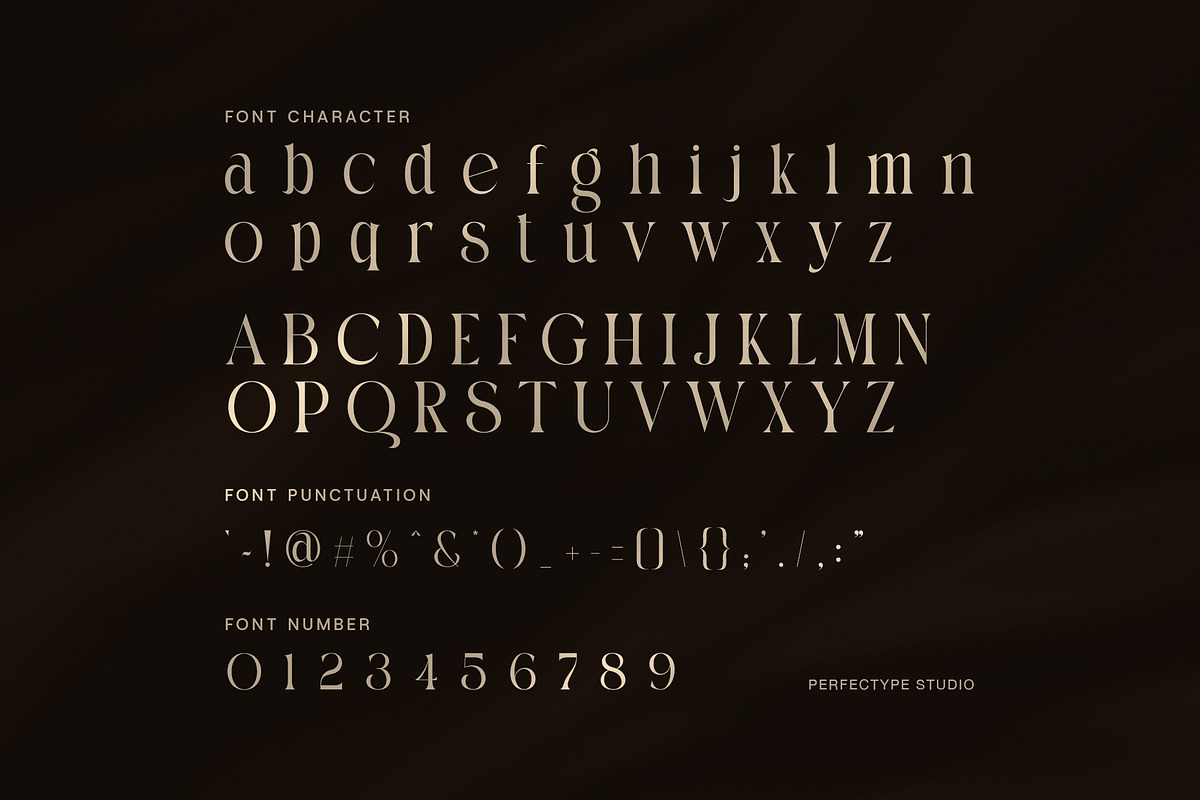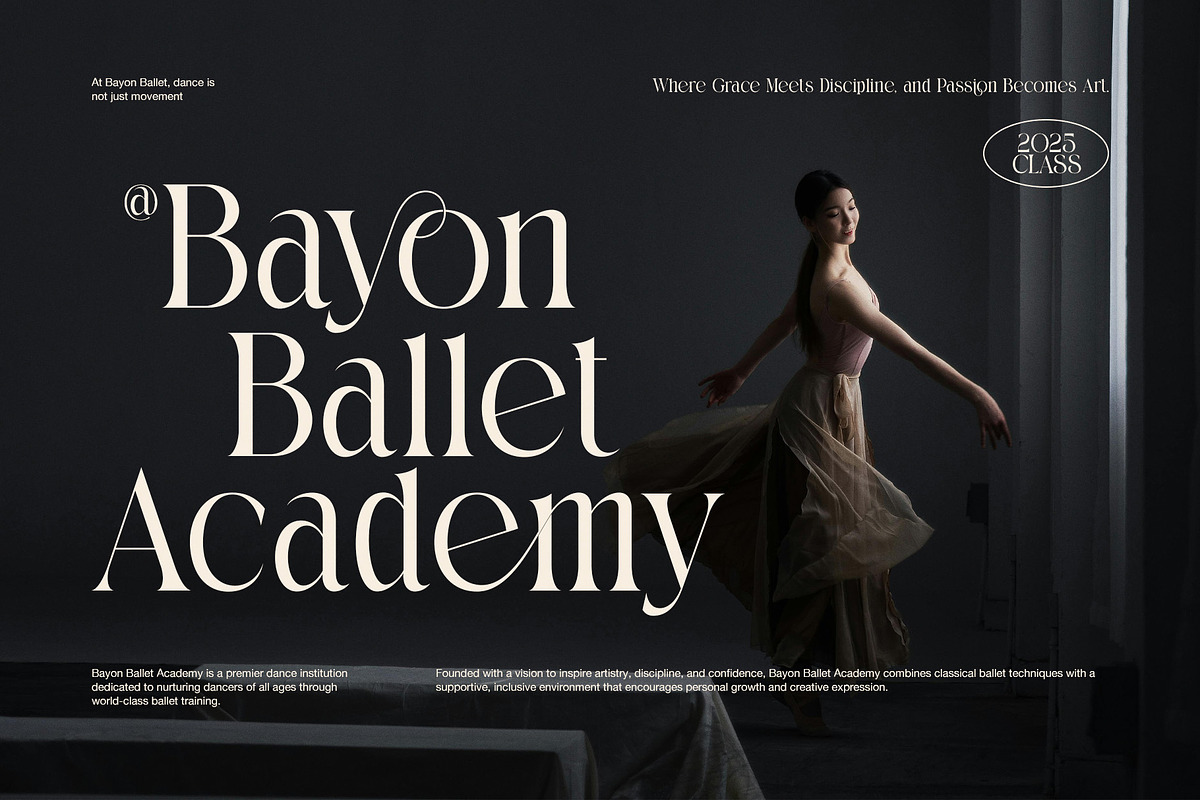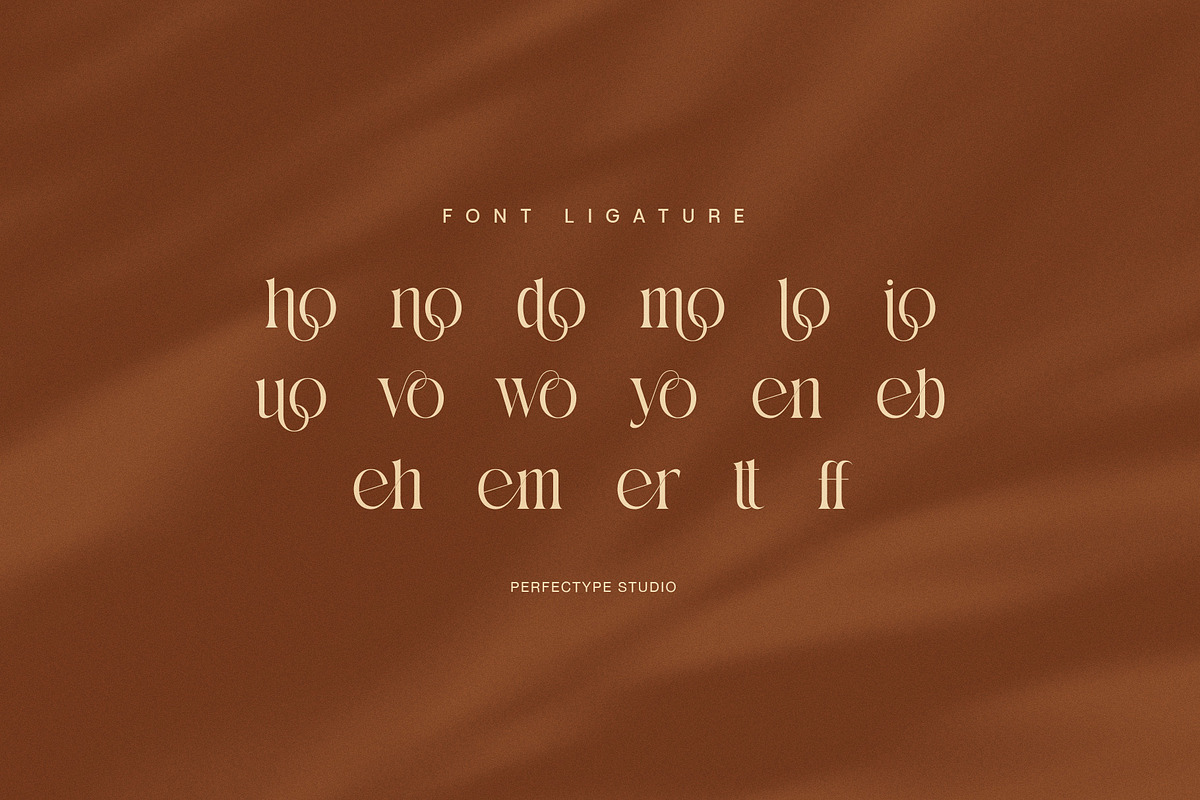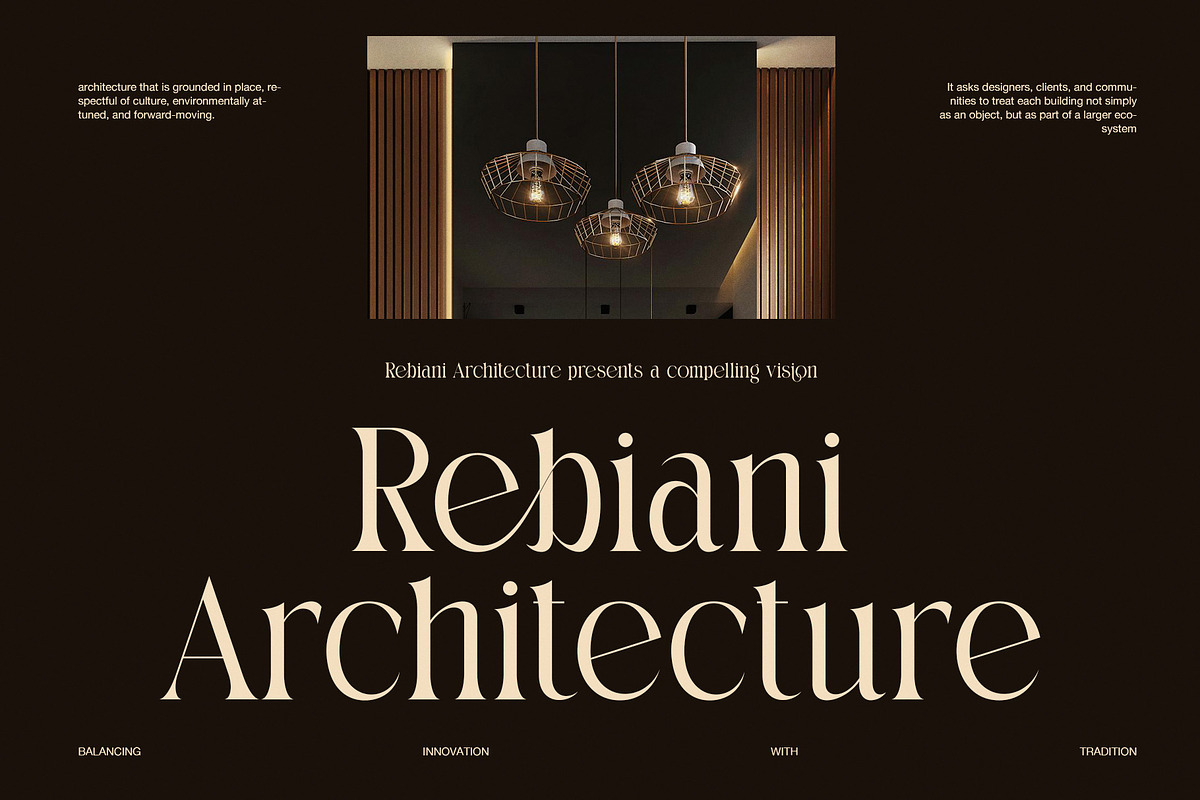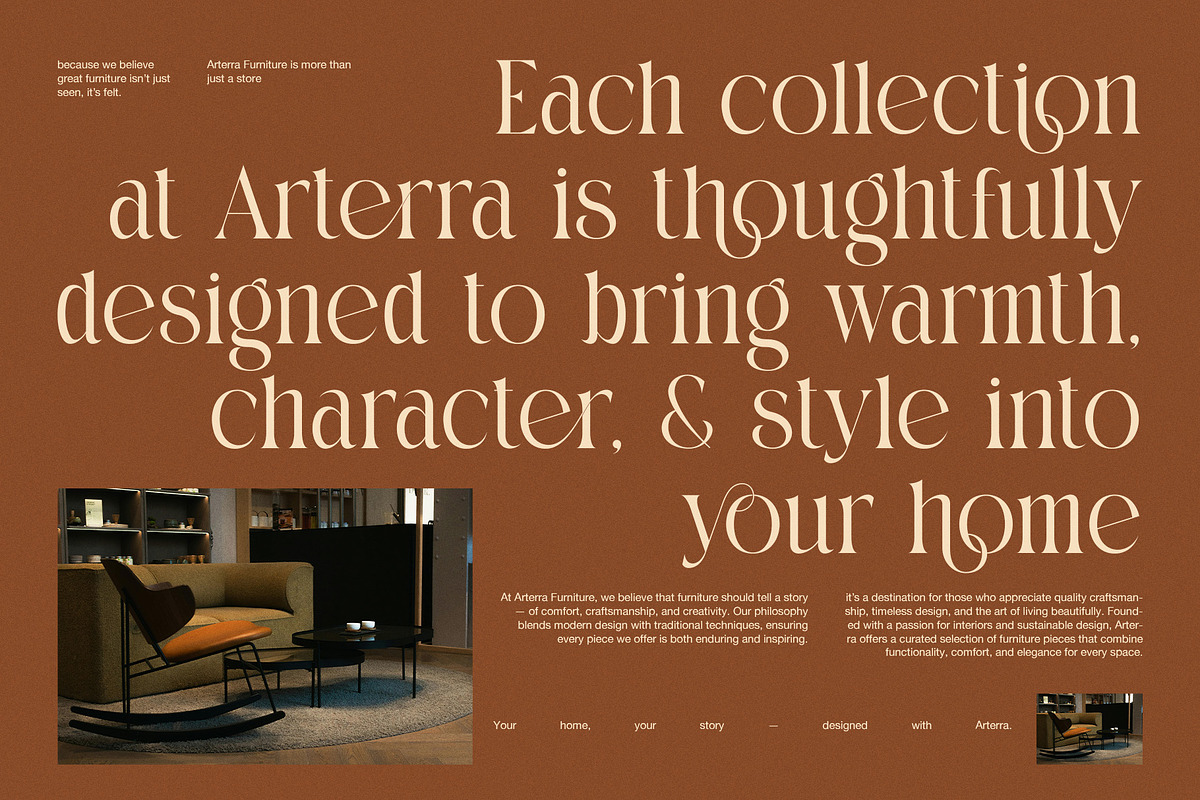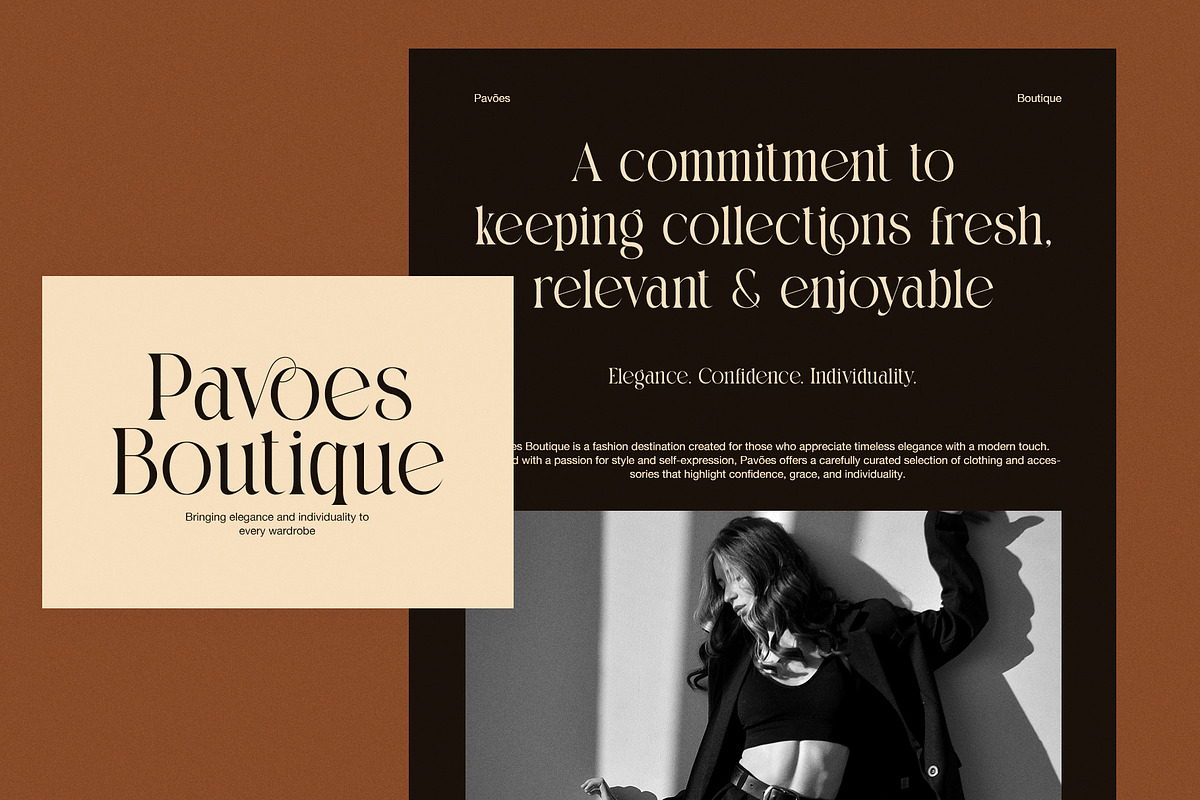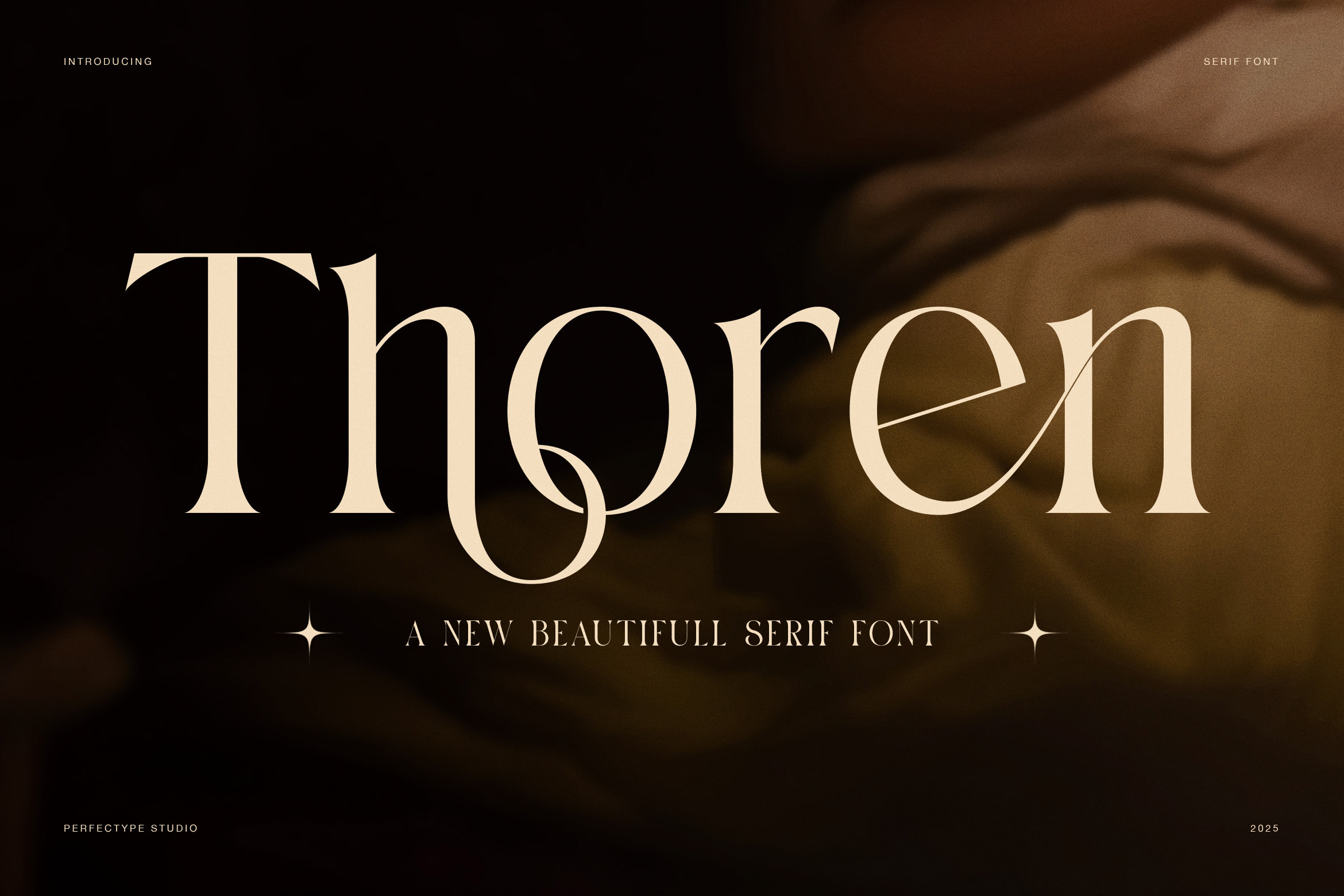
Thoren Elegant Serif Font
Thoren is an elegant serif font designed to express warmth, balance, and timeless sophistication. It combines refined serif foundations with smooth curves and subtle decorative details, which creates a graceful and confident typographic voice. Because of this balance, Thoren feels luxurious while remaining natural and approachable.
First of all, Thoren features carefully shaped letterforms with soft contrast and flowing strokes. These elements guide the reader’s eye smoothly, which improves readability while preserving elegance. Moreover, the rounded terminals and delicate connections add character without overpowering the design. As a result, Thoren performs beautifully in both statement headlines and refined layouts.
In addition, Thoren includes stylish ligatures and alternates that enhance creative freedom. These features allow designers to create expressive wordmarks and distinctive typography while maintaining a cohesive look. Therefore, each project can feel custom and intentional, even when used across multiple platforms.
Furthermore, Thoren adapts effortlessly to many design categories. It is ideal for fashion branding, interior design, architecture studios, boutique identities, editorial layouts, and lifestyle visuals. At the same time, it works smoothly in digital environments such as websites, social media graphics, and online advertisements. Because of its balanced proportions, Thoren remains elegant at both large and medium sizes.
Another strength of Thoren lies in its emotional tone. The font communicates comfort, confidence, and refined taste. Consequently, it supports storytelling and brand identity while creating a calm and premium atmosphere. Designers can rely on Thoren to elevate content without distracting from the message.
Why choose Thoren Elegant Serif Font?
Elegant serif style with smooth, flowing curves
Ligatures and alternates for expressive typography
Ideal for fashion, interior, and boutique branding
Comfortable readability with refined contrast
Suitable for print and digital projects
Timeless design with a warm, premium feel
In conclusion, Thoren is more than a serif font. It is a versatile design asset that enhances branding, editorials, and visual storytelling. Whether you are designing for luxury brands, architecture studios, or lifestyle projects, Thoren helps your work feel elegant, thoughtful, and memorable.